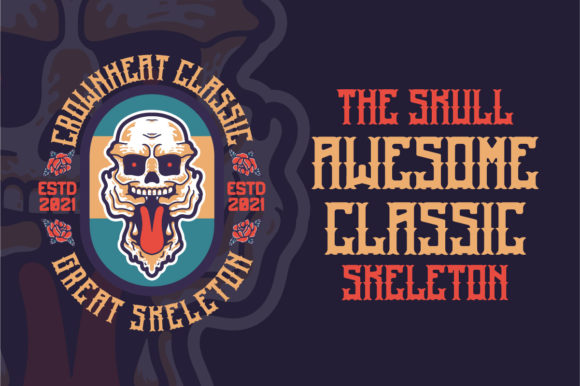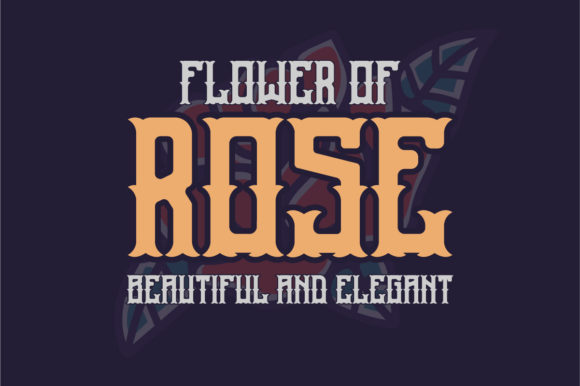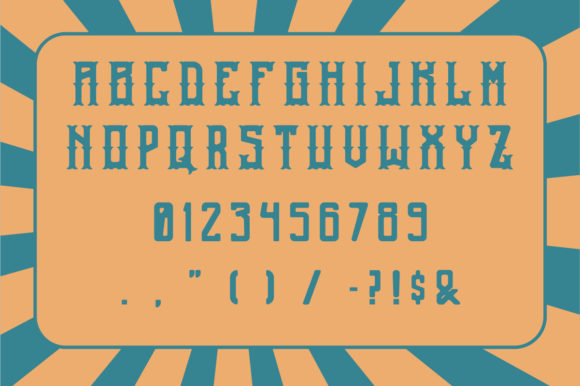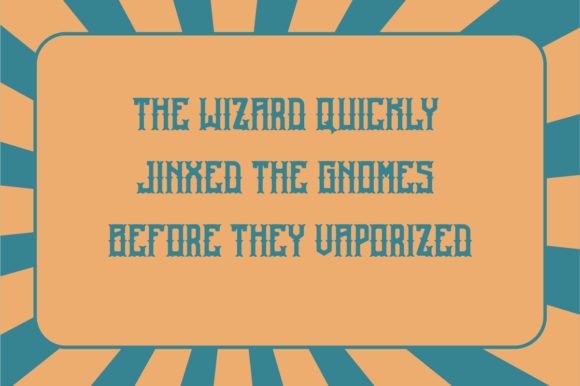
Crownheat Font: Elevate Your Crafting Ideas with a Bold, Rough Textured Classic
Are you a designer or crafter looking for a font that can add a touch of elegance and sophistication to your projects? Look no further than Crownheat Font. This bold, rough textured, and classic display font is perfect for a wide range of crafting ideas, from cards to branding, labels, and more.
What is Crownheat Font?
Crownheat Font is a unique and versatile font that is designed to make a statement. Its bold and rough textured style gives it a distinctive look that is sure to grab attention. The font’s classic design ensures that it will never go out of style, making it a great investment for designers and crafters who want to stay ahead of the curve.
Features of Crownheat Font
- Bold and Rough Textured Style: Crownheat Font’s bold and rough textured style makes it perfect for creating eye-catching headlines, titles, and labels.
- Classic Design: The font’s classic design ensures that it will never go out of style, making it a great investment for designers and crafters who want to stay ahead of the curve.
- Versatile: Crownheat Font is perfect for a wide range of crafting ideas, from cards to branding, labels, and more.
- Easily Readable: Despite its bold style, Crownheat Font is easily readable, making it perfect for use in a variety of projects.
Uses of Crownheat Font
Crownheat Font is perfect for a wide range of crafting ideas, including:
- Cards: Use Crownheat Font to create eye-catching greeting cards, invitations, and more.
- Branding: Use Crownheat Font to create bold and memorable logos, business cards, and other branding materials.
- Labels: Use Crownheat Font to create labels for products, files, and more.
- Signage: Use Crownheat Font to create eye-catching signs, posters, and other display materials.
Benefits of Using Crownheat Font
There are many benefits to using Crownheat Font in your crafting projects. Some of the benefits include:
- Unique and Memorable: Crownheat Font’s bold and rough textured style makes it unique and memorable, ensuring that your projects will stand out from the crowd.
- Easily Customizable: Crownheat Font is easily customizable, making it perfect for use in a variety of projects.
- Time-Saving: Crownheat Font is a high-quality font that is designed to save you time and effort in your crafting projects.
Tips for Using Crownheat Font
Here are some tips for using Crownheat Font in your crafting projects:
- Use it Boldly: Crownheat Font is a bold font, so don’t be afraid to use it boldly in your projects.
- Experiment with Colors: Crownheat Font looks great in a variety of colors, so experiment with different colors to find the one that works best for your project.
- Pair it with Other Fonts: Crownheat Font pairs well with other fonts, so don’t be afraid to experiment with different font combinations.
Crownheat Font is a bold, rough textured, and classic display font that is perfect for a wide range of crafting ideas. Its unique and memorable style makes it a great investment for designers and crafters who want to stay ahead of the curve. With its versatility, ease of use, and high-quality design, Crownheat Font is a must-have for any serious designer or crafter.